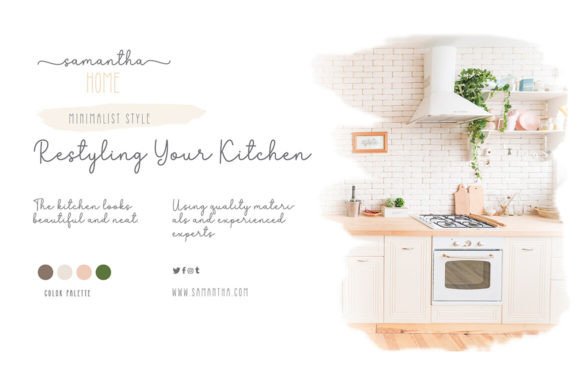
Chiffoncake Duo Font
ChiffonCake Duo, a subtly refined duo font combining sans serif and script, caters to an expansive range of uses. Whether it’s adorning a heartwarming greeting card or gracing an eye-catching headline, this stunning typeface infuses every creation with a touch of romance. Featuring PUA encoding, the Cupcake Handmade Duo allows effortless access to the full gamut of glyphs and ligatures, ensuring smooth blending into any design canvas.